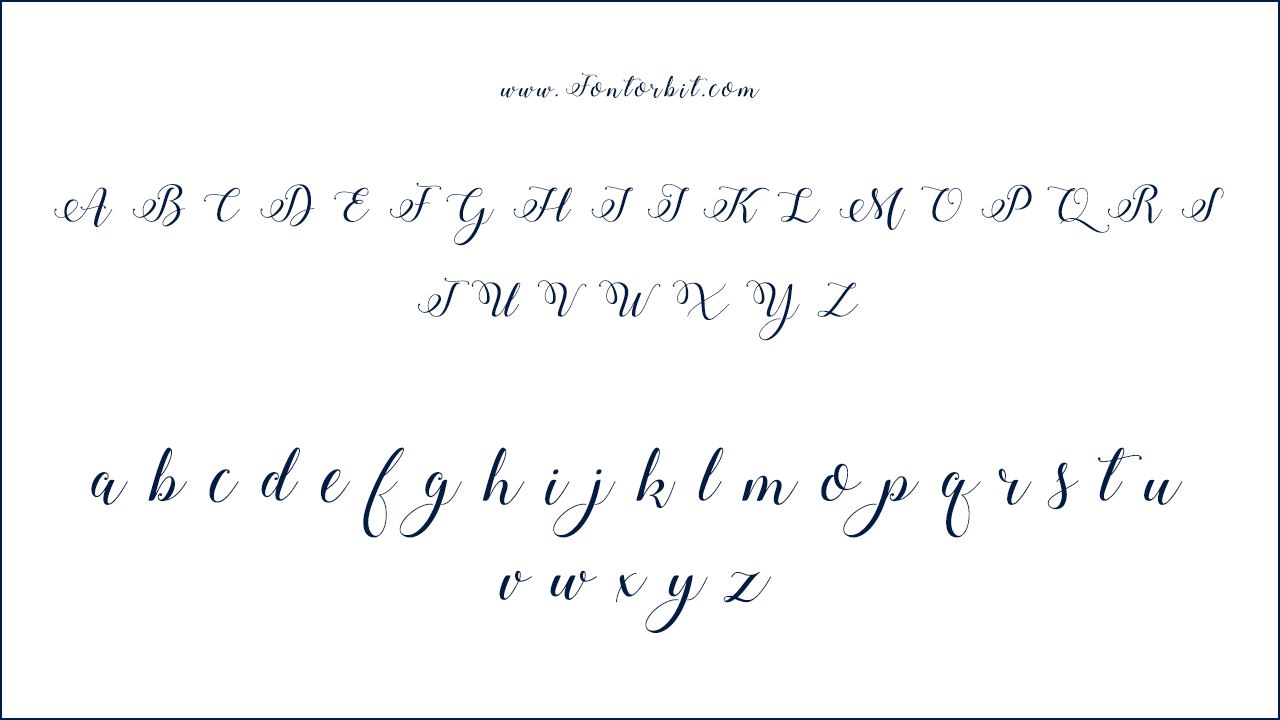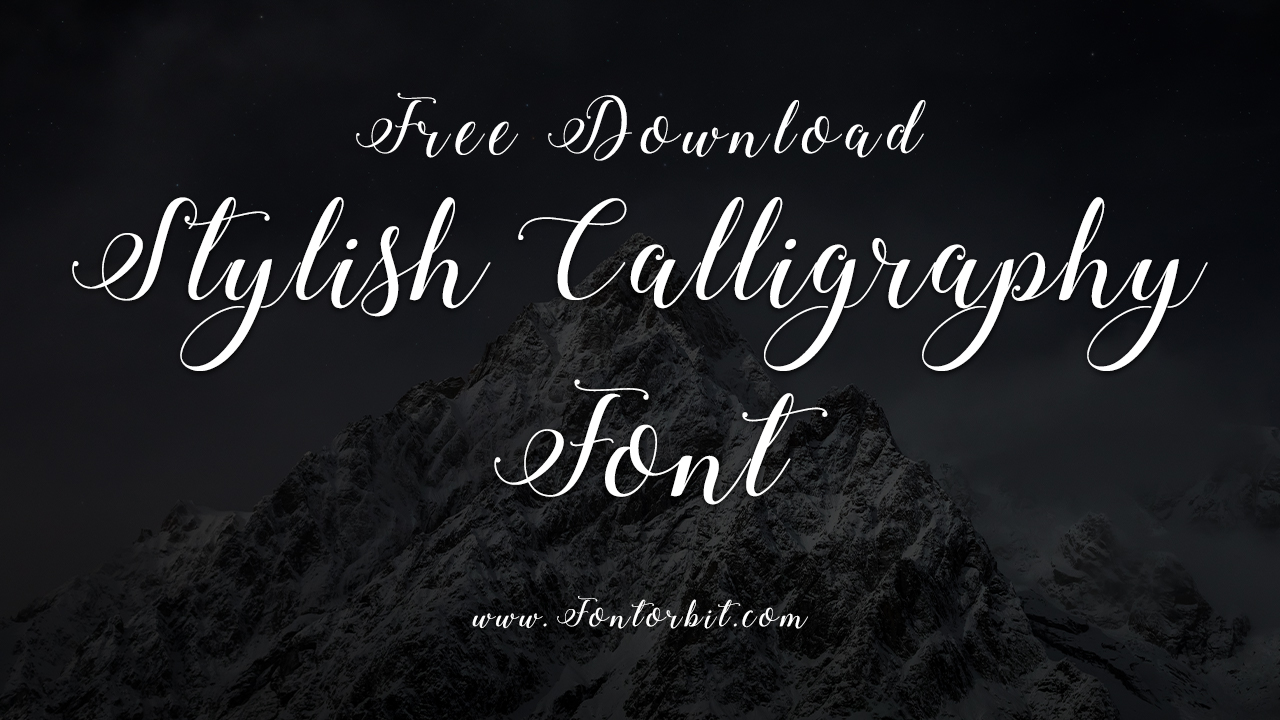
Stylish Calligraphy Font is a refined and elegant script typeface designed to evoke a sense of sophistication and artistry. Created on July 18, 2015, by Misti’s Fonts, this font has become a popular choice for those looking to add a touch of elegance to their designs.
Stylish Calligraphy belongs to the script category, characterized by its flowing, handwritten appearance. It is available in one primary style but offers extensive customization through OpenType features.
The font includes a comprehensive set of characters, such as uppercase and lowercase letters, numbers, punctuation marks, and various special characters. Its design emphasizes elegant strokes and graceful flourishes, making it ideal for sophisticated design needs.
With its graceful and elaborate design, Stylish Calligraphy is best suited for projects that require a touch of elegance and refinement. It is perfect for:
- Wedding invitations
- Event programs
- Greeting cards
- logo design
- Artistic quotes
- Typography
- Religious or ceremonial documents
Stylish Calligraphy Font is a versatile and elegant typeface that adds a touch of sophistication to any design. Its wide range of OpenType features and graceful design make it an excellent choice for both digital and print media.
Whether you’re working on formal invitations, creative branding, or artistic quotes, this font provides the flexibility and beauty needed to enhance your projects.
Stylish Calligraphy was created on July 18, 2015, and has been updated to maintain its relevance and usability in modern design contexts.